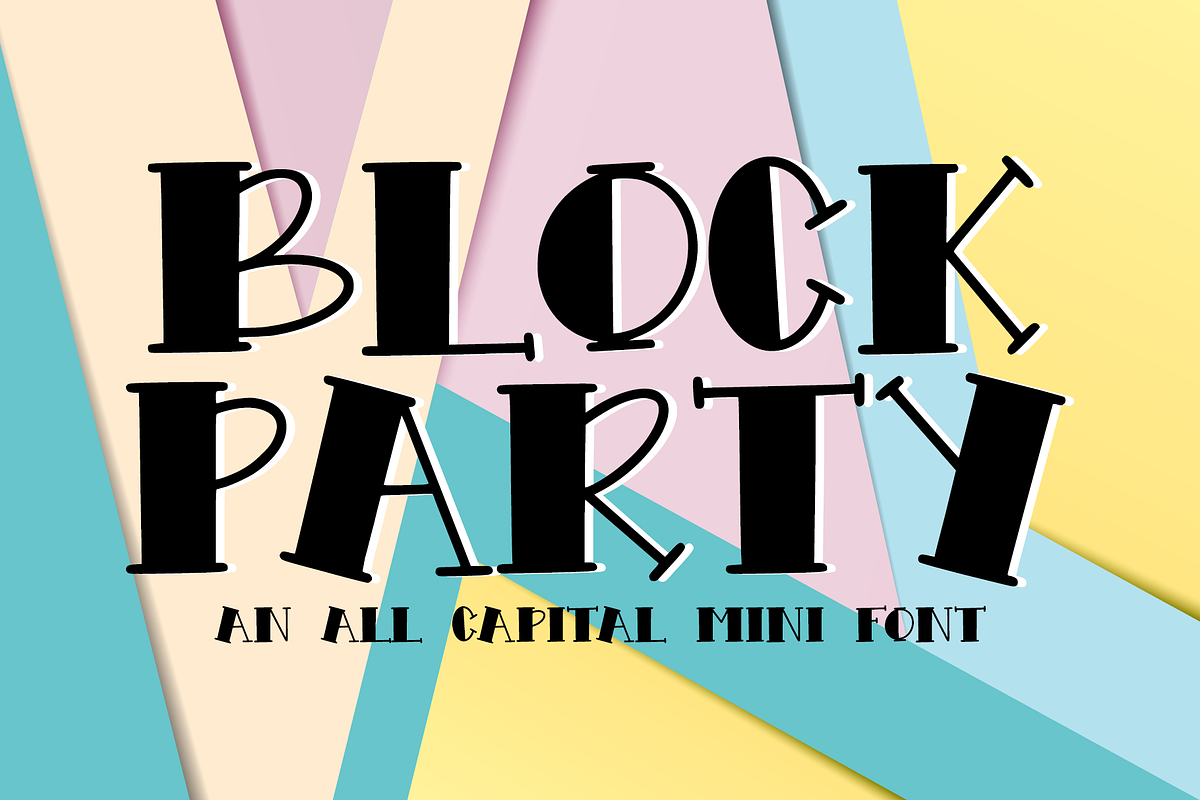
Block Party - Mini Display Font
Introducing Block Party! A handwritten all caps mini font!
Block Party has a genuine handwritten feel. Created using Procreate on the iPad, every single element is hand lettered.
Block Party is a great font to use for all sorts of projects -- from graphic design, to physical products! The possibilities are endless.
Since this is a mini font, no numbers or symbols are included. Letters will look exactly the same with both caps lock on or off.